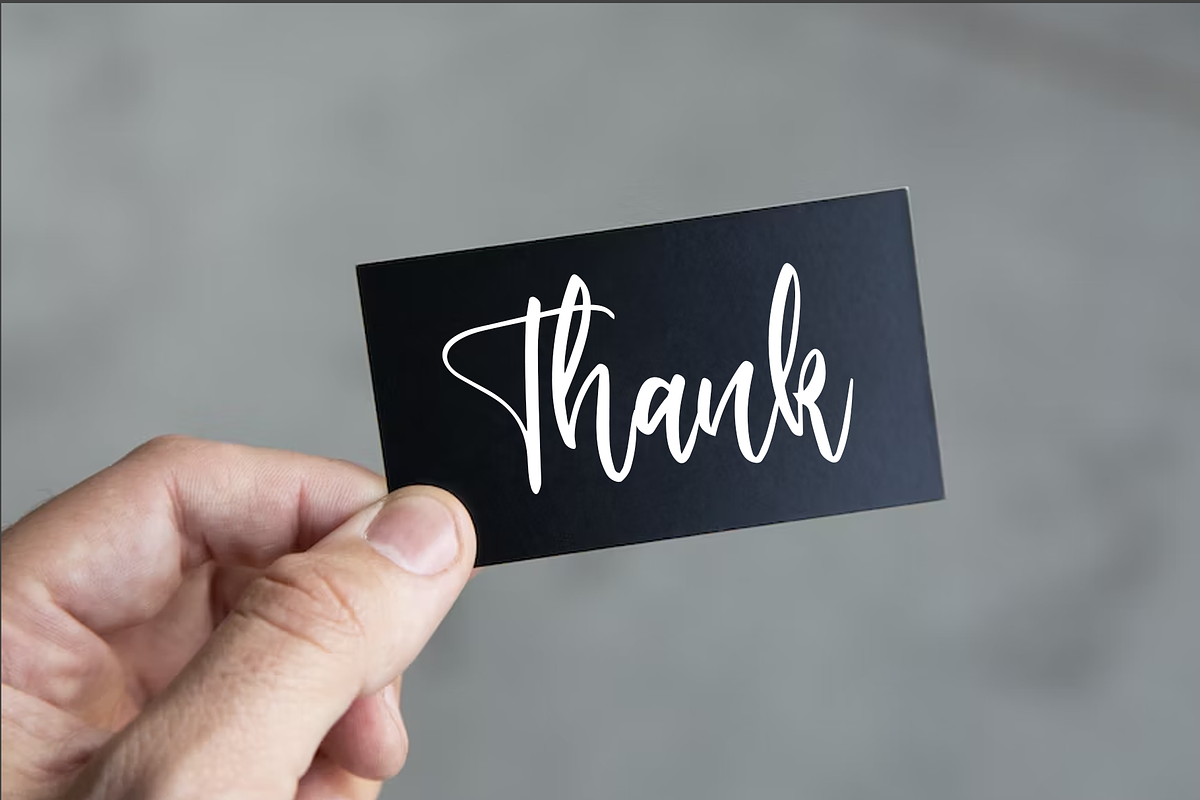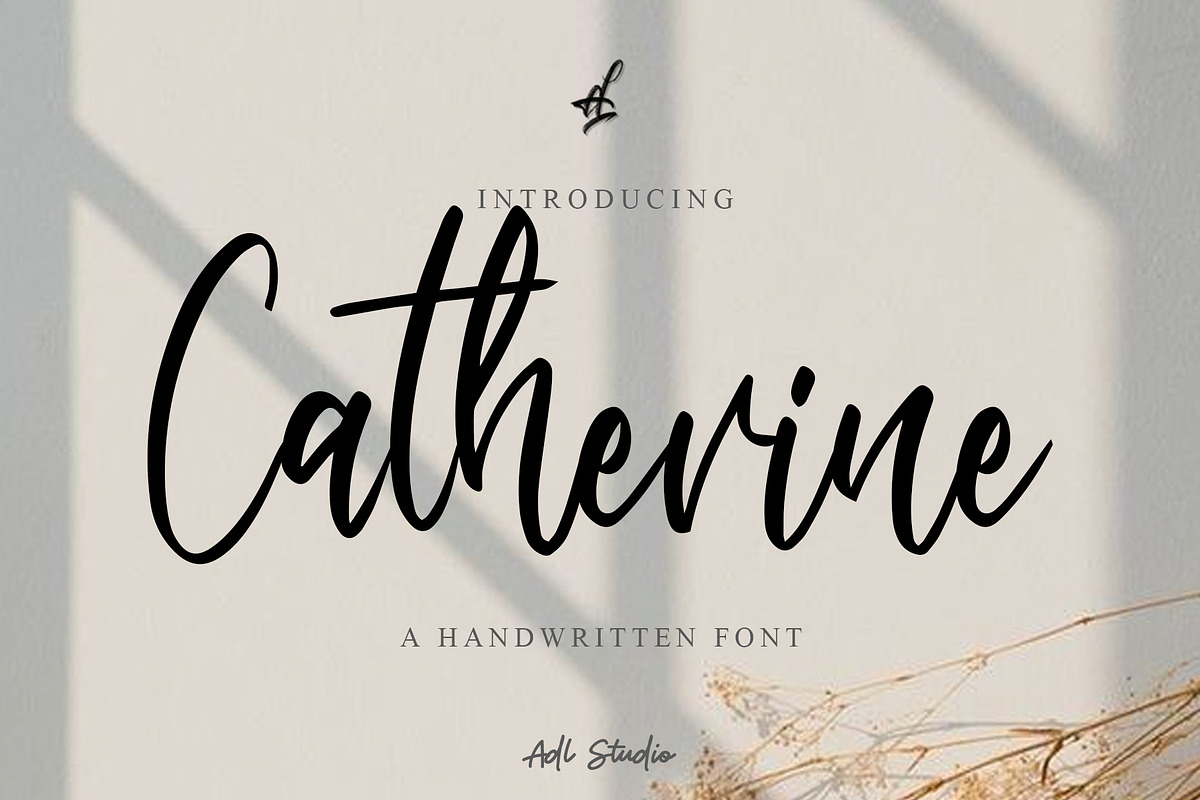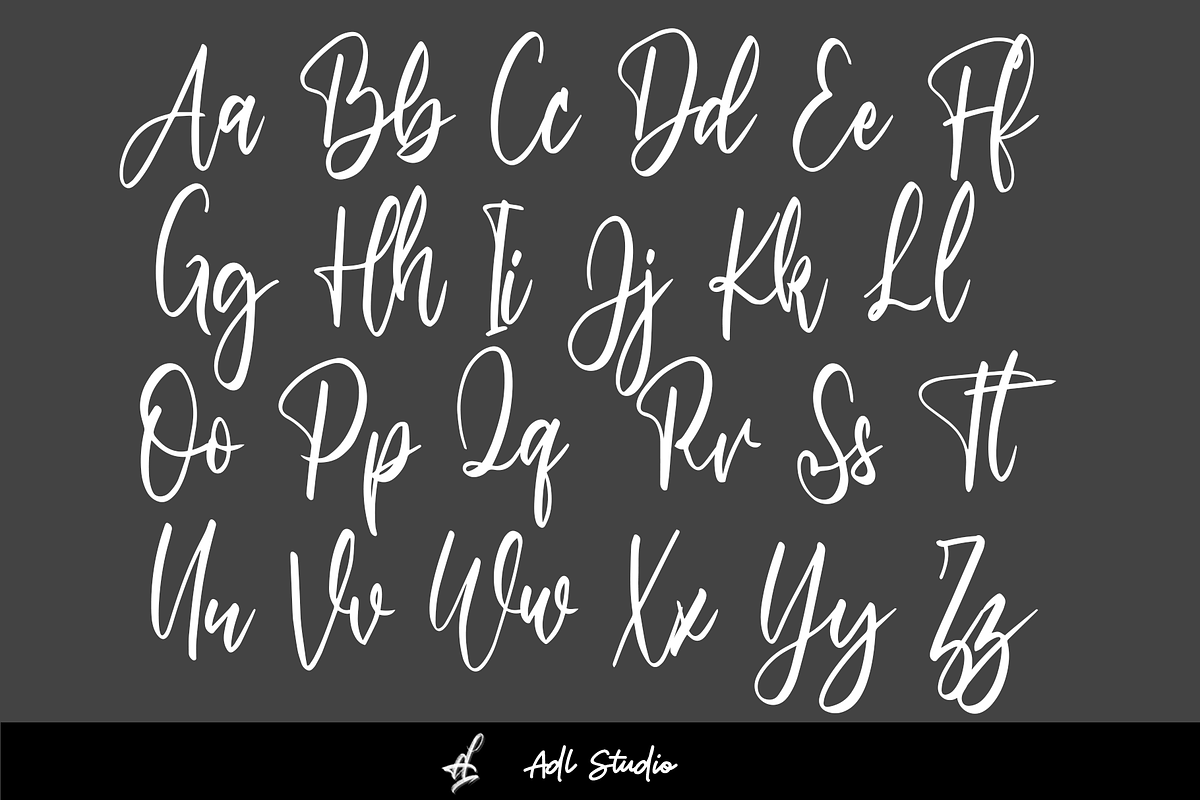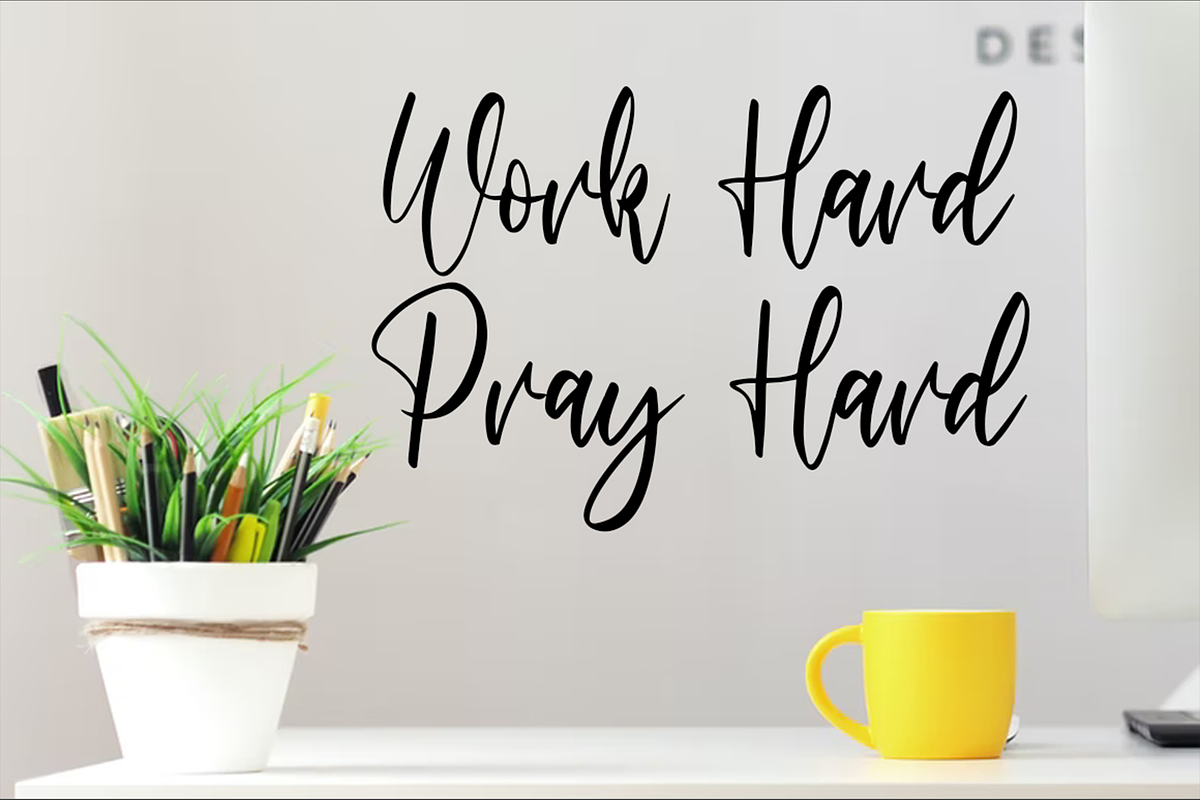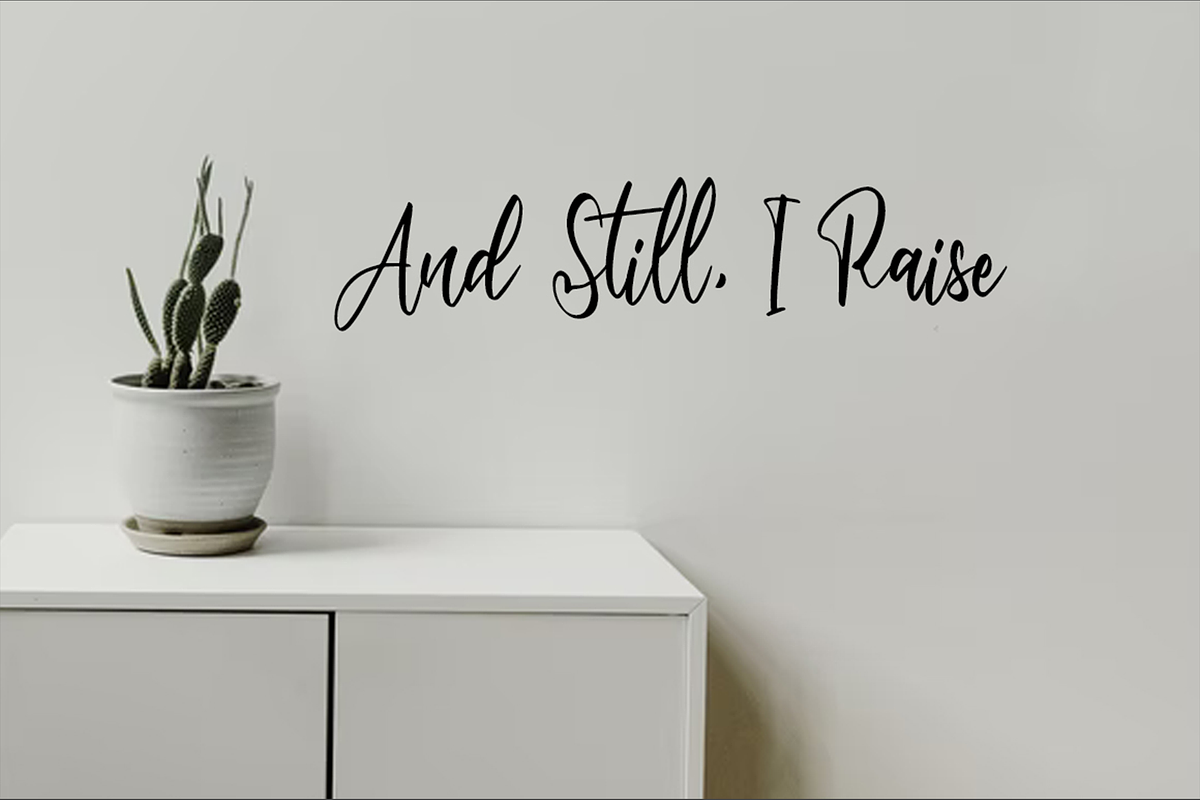
Catherine
Introducing "Catherine" - a beautifully crafted handwritten font by Adl Studio, available exclusively on Creative Market. With its delicate strokes and unique character design, Catherine is the perfect choice for adding a touch of elegance to your projects.
Whether you're creating wedding invitations, logos, or branding materials, Catherine's natural flow and versatile design make it a great option. This font is the perfect representation of Adl Studio's commitment to quality and craftsmanship, and we are proud to share it with you.